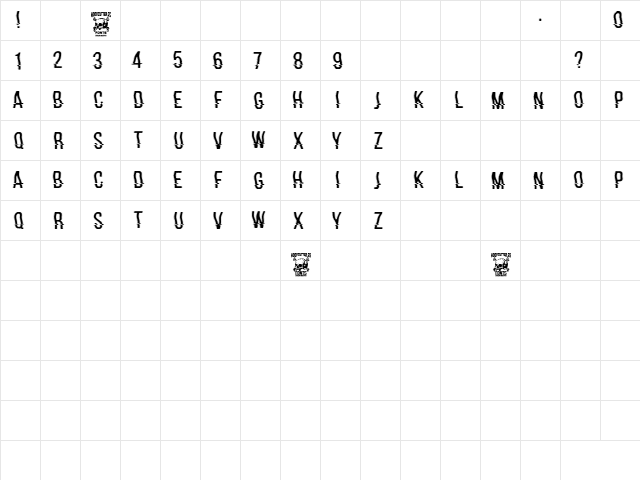
hackerchaos Regular Font Preview
hackerchaos Regular
Design Context for hackerchaos Typeface
hackerchaos is a composed and adaptable typeface that performs quietly and consistently across a wide range of design contexts.